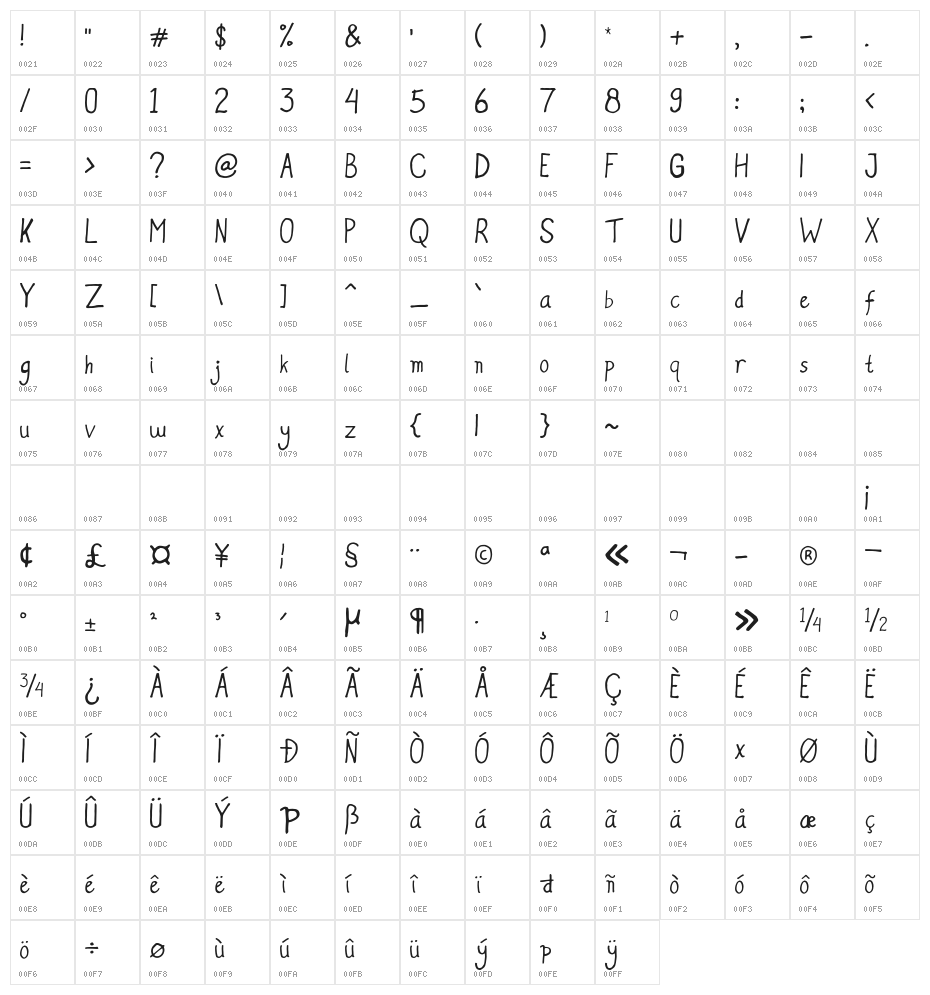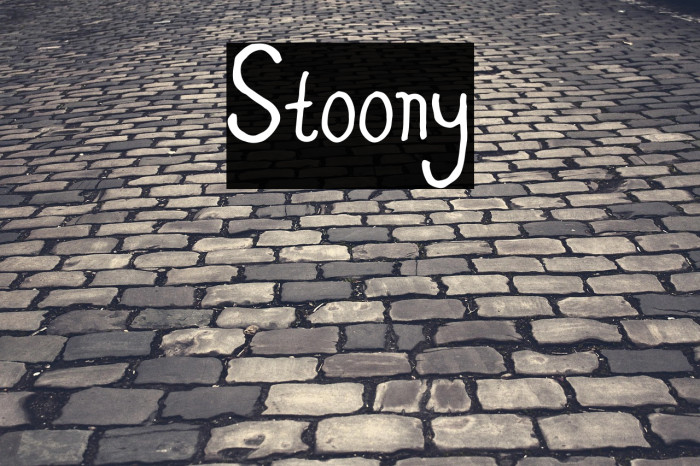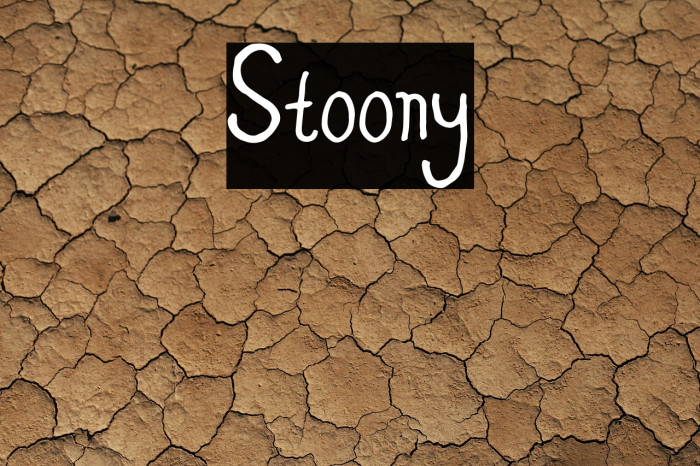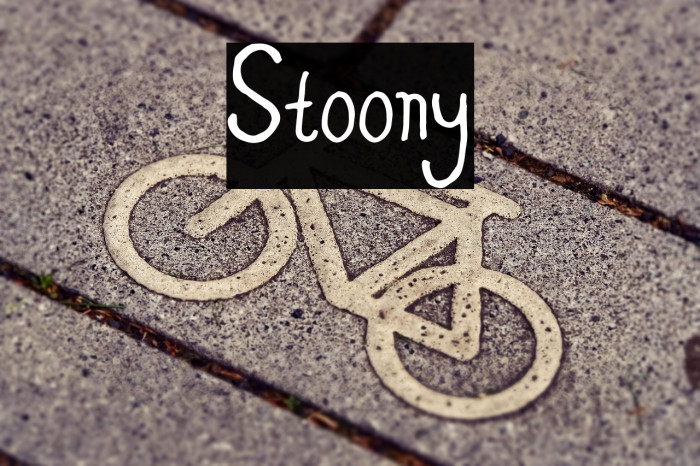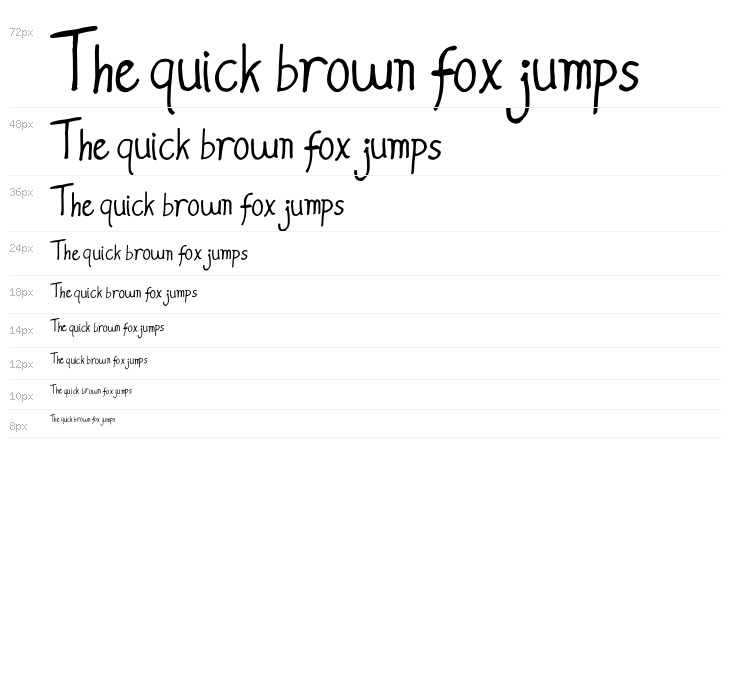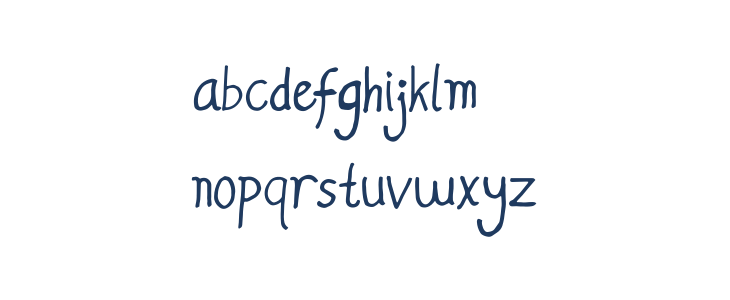
Stoony Font
Stoony Description
This font features a playful and informal style, characterized by its hand-drawn appearance. The letters have a slightly irregular shape, giving them a whimsical and casual feel. The strokes are uneven, with some variation in thickness, adding to the font's charm. The uppercase and lowercase letters maintain a consistent style, with rounded edges and a friendly demeanor. Numbers and special characters are crafted with the same playful touch, making this font suitable for creative and informal projects.